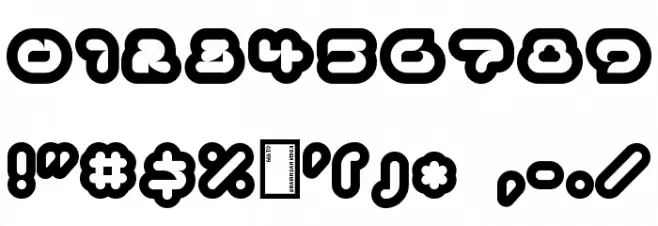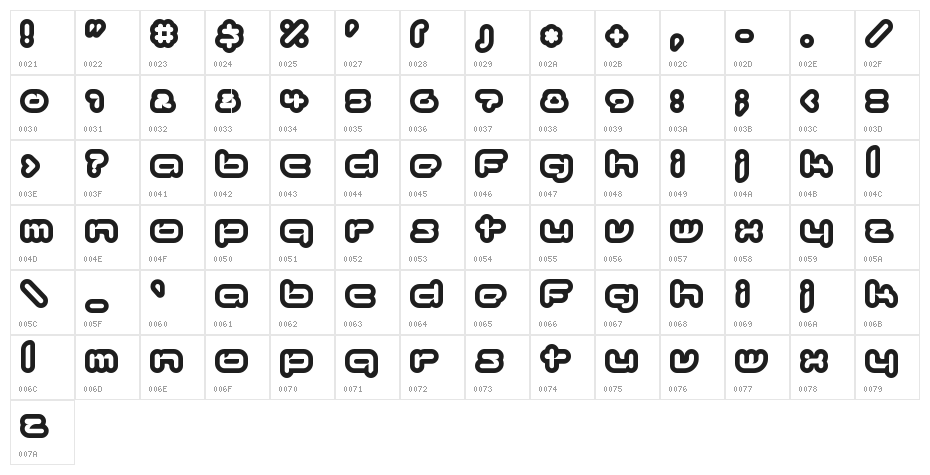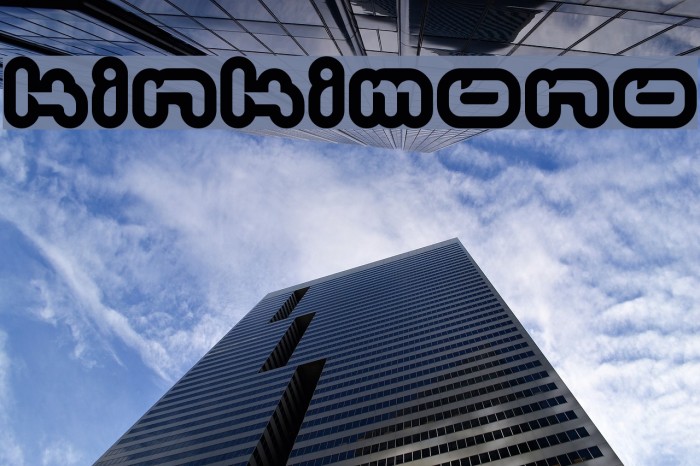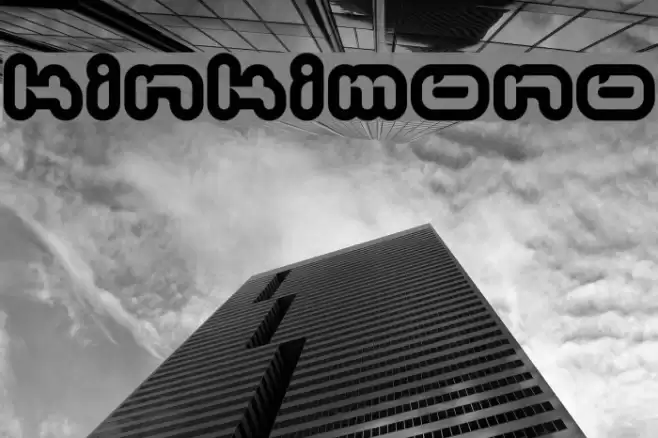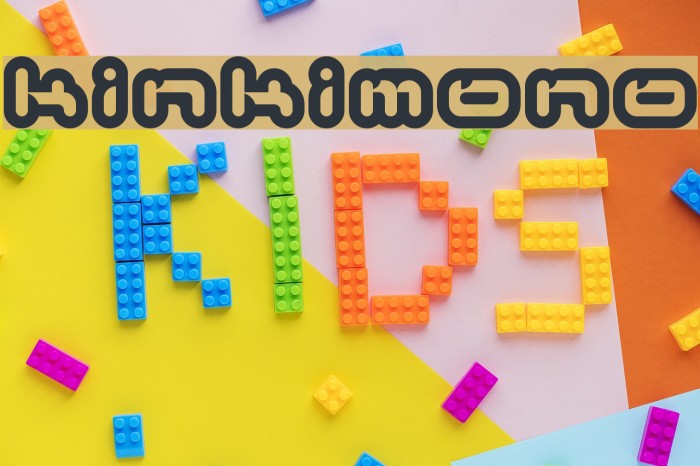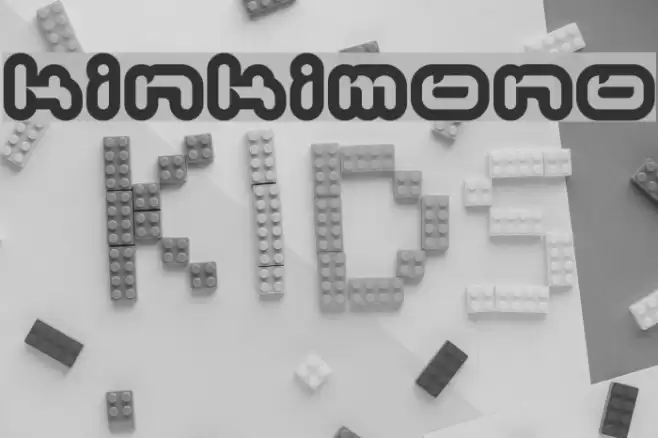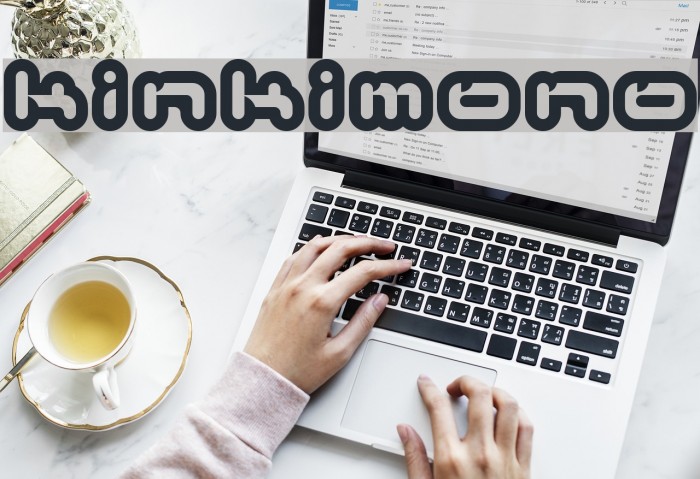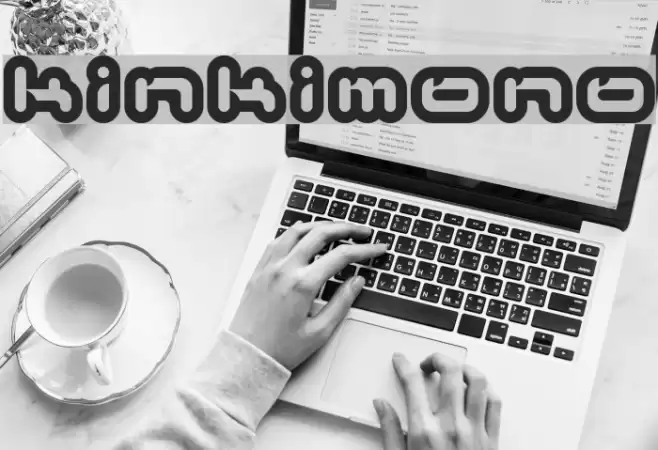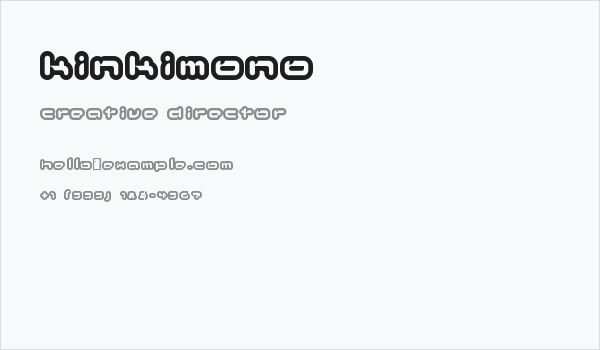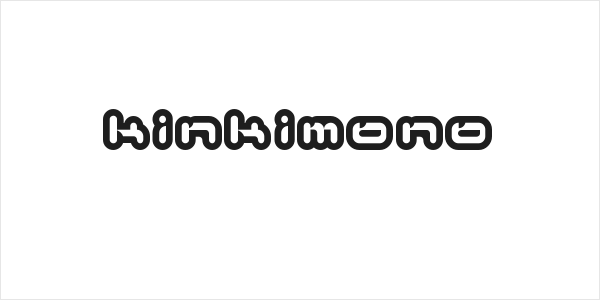
Kinkimono Font
Kinkimono Description
This font features a bold, rounded style with a playful and modern aesthetic. The characters are enclosed in thick outlines, giving them a bubble-like appearance. The uniformity in stroke width across all characters contributes to a cohesive look, while the rounded edges soften the overall feel. The font maintains a consistent height and width for both uppercase and lowercase letters, enhancing readability. The numerals and special characters follow the same design principles, ensuring a harmonious visual experience. This font is ideal for projects that require a fun and engaging typeface.
Proposed ProjectsIdeal for children's books, playful branding, posters, and social media graphics.